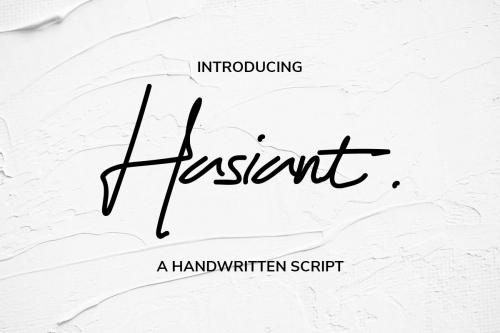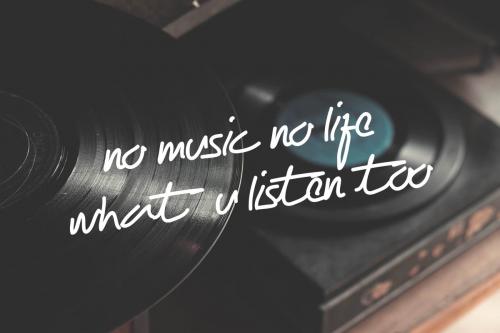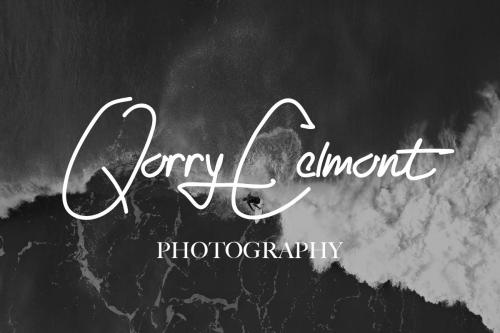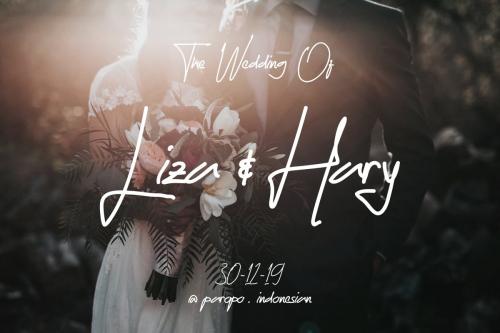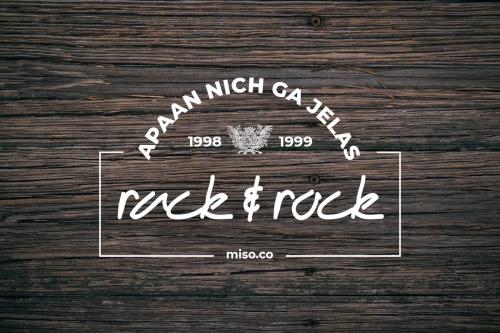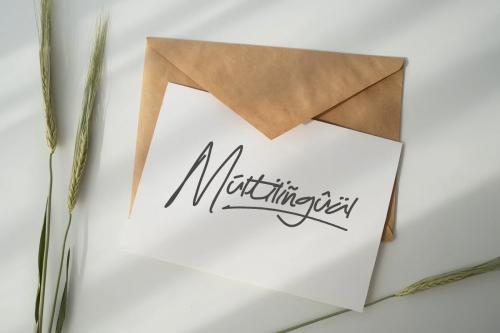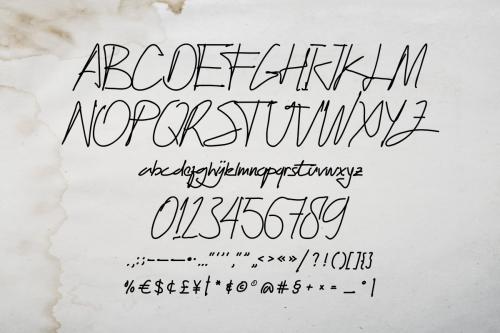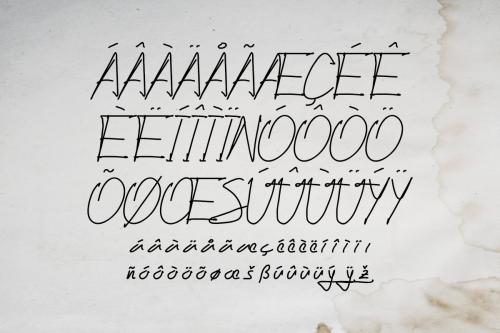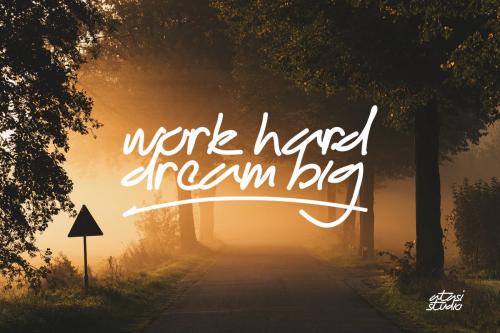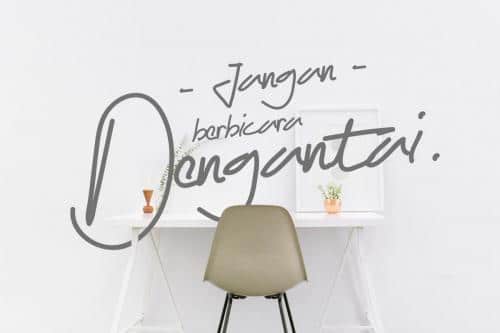
Hasiant Font is a handwritten signature font. It’s a handwritten signature font package with a personal charm. With a style that feel is the first time being blended with a different brush so it has a natural hand. Give your designs an authentic handcrafted feel.
Hasiant Handwritten is perfectly suited to signature, stationery, logo, typography quotes, magazine or book cover, website header, clothing, branding, packaging design and more. Included Ligatures.